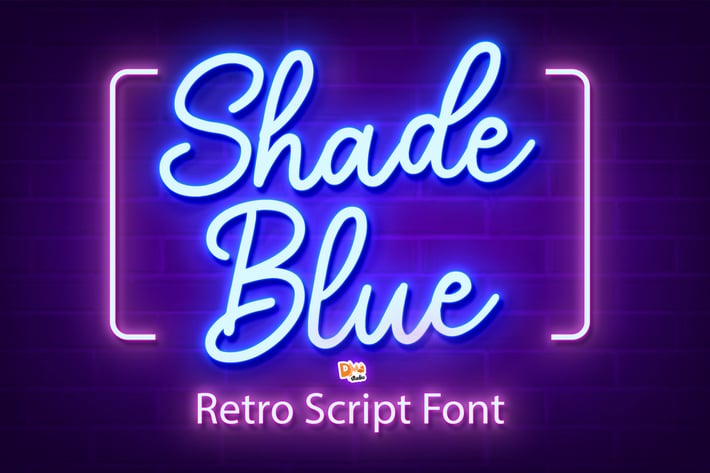
Shade Blue - Retro Script Font
Shade Blue is a retro style script font.
It's a chic, monoline script font, great for any project, social media post, advertising, business, poster and much more!